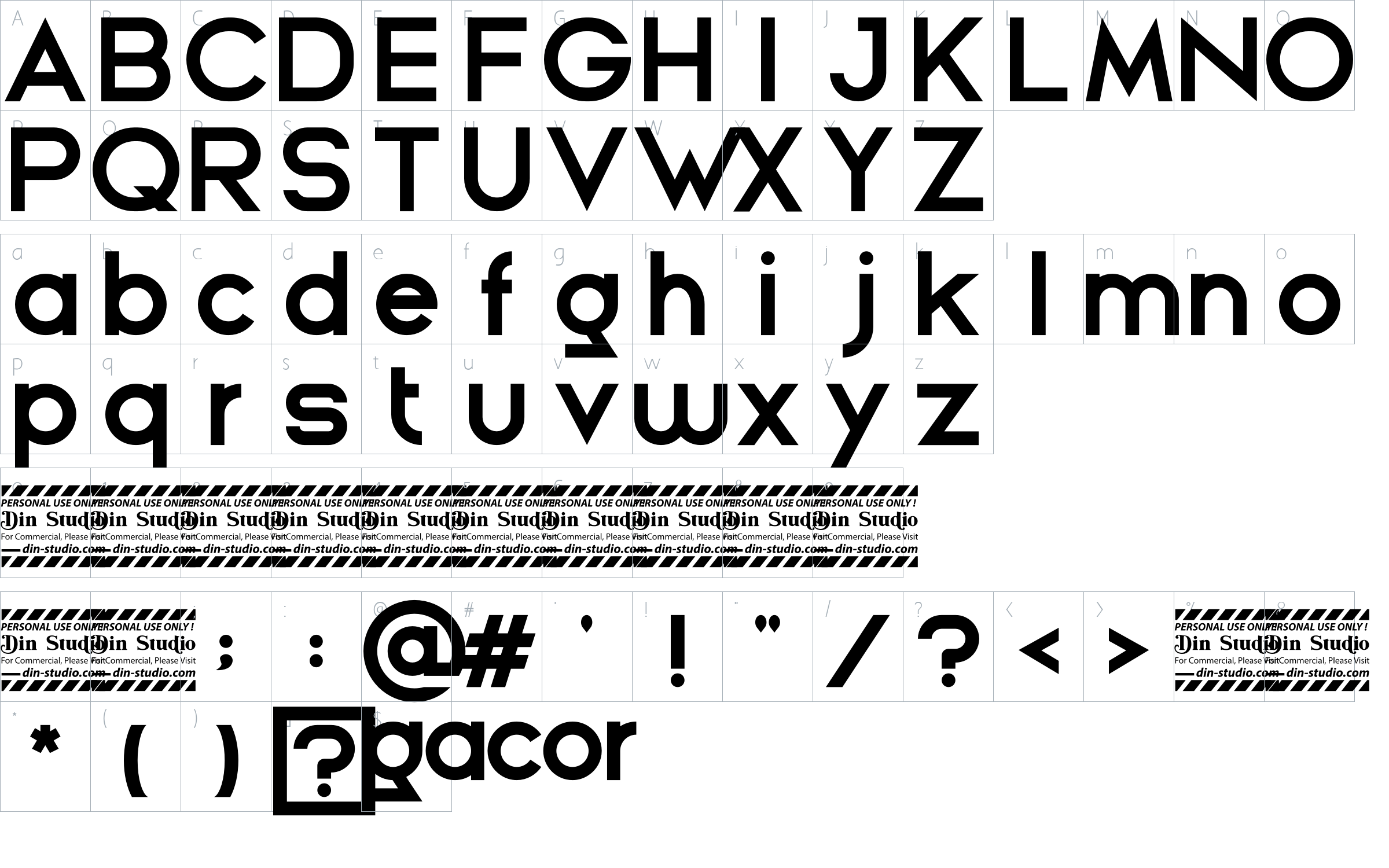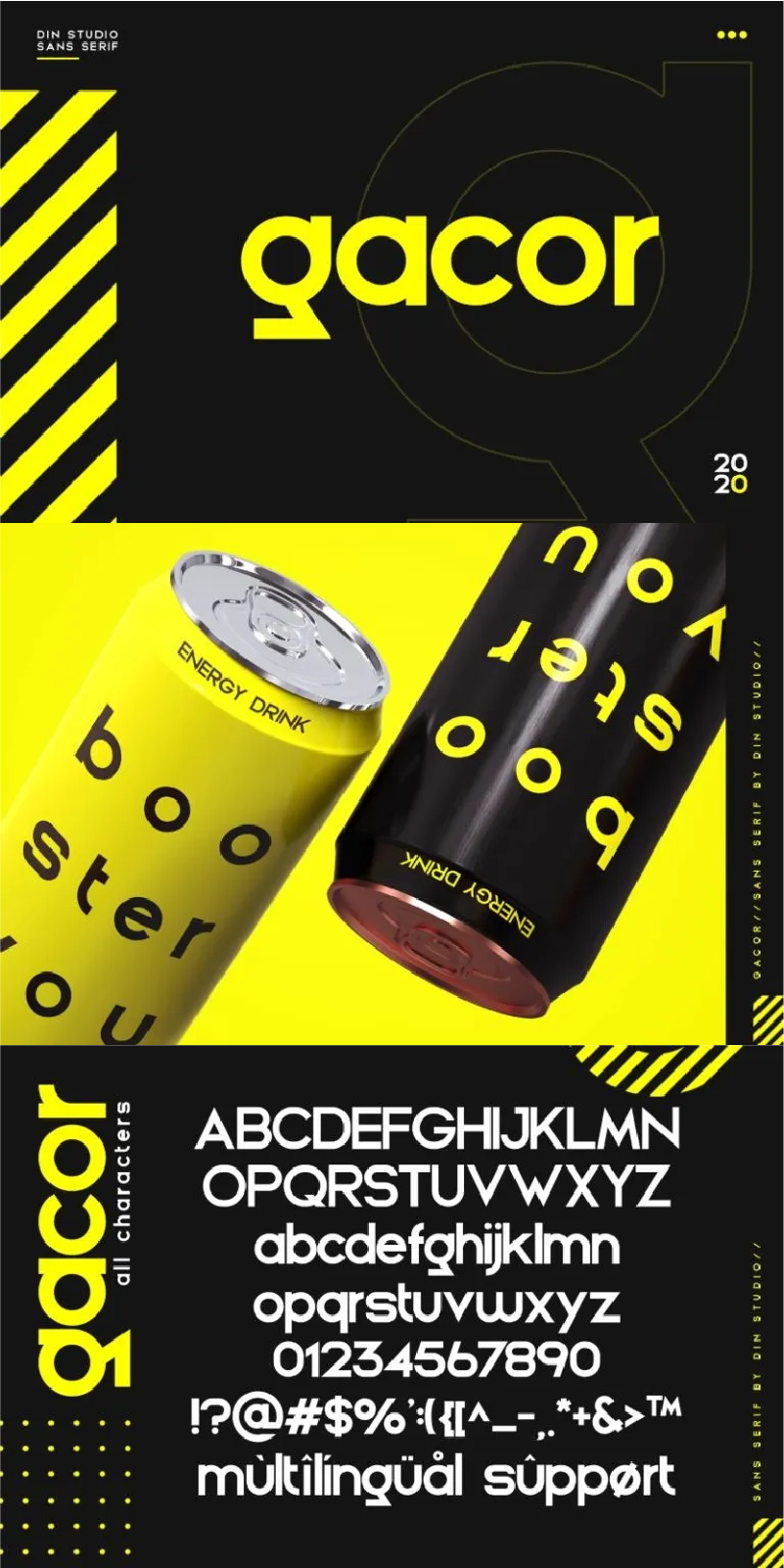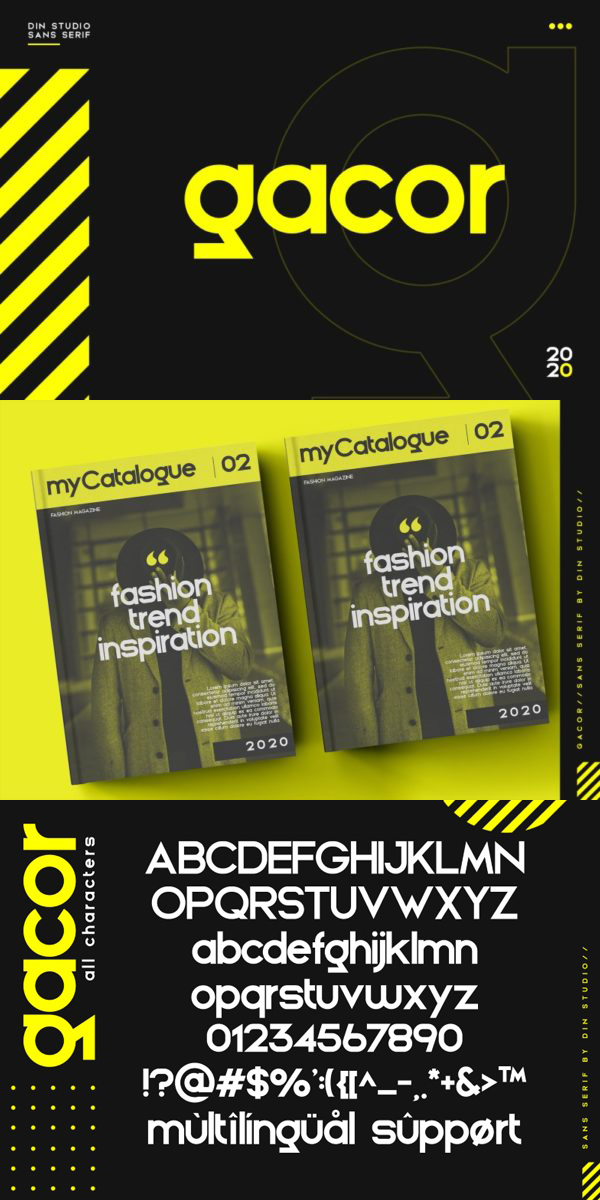
Gacor Font
About Gacor
Gacor – Urban Sans Serif Font made for any professional project brandings which is best applied for brandings, printings, and quotes. Every letter has a unique and beautiful touch. See the previews above to get some inspiration on how you can use them. Happy designing!